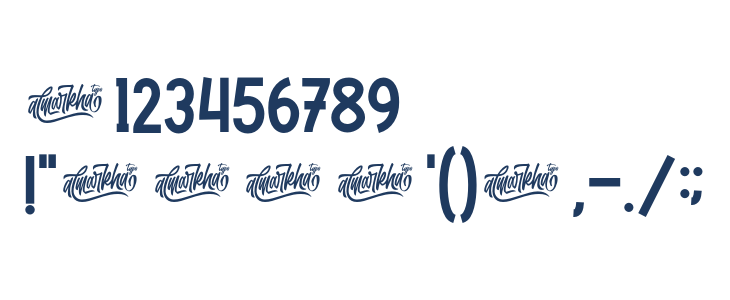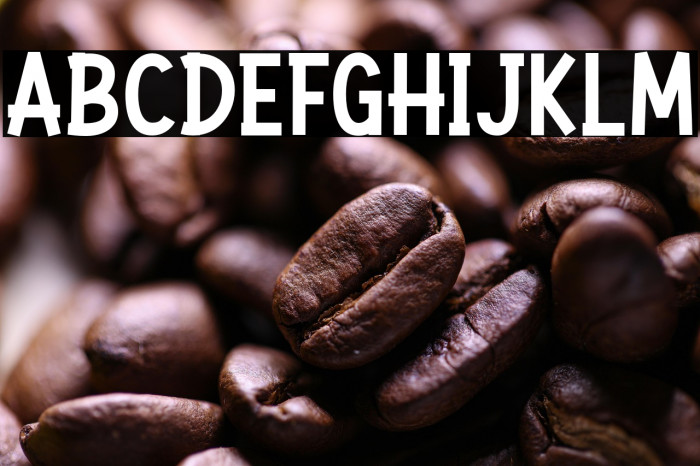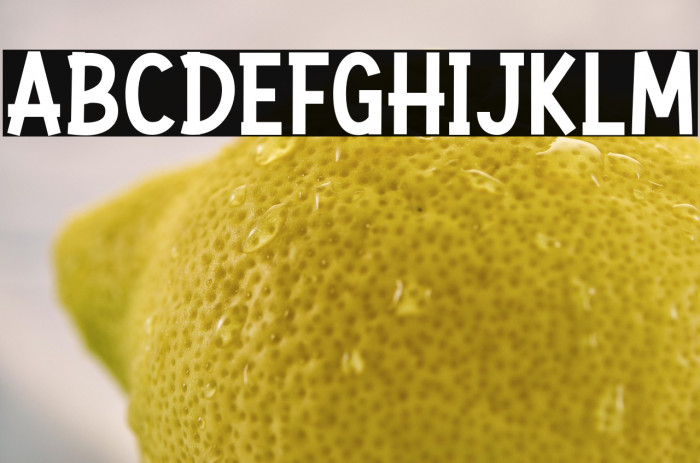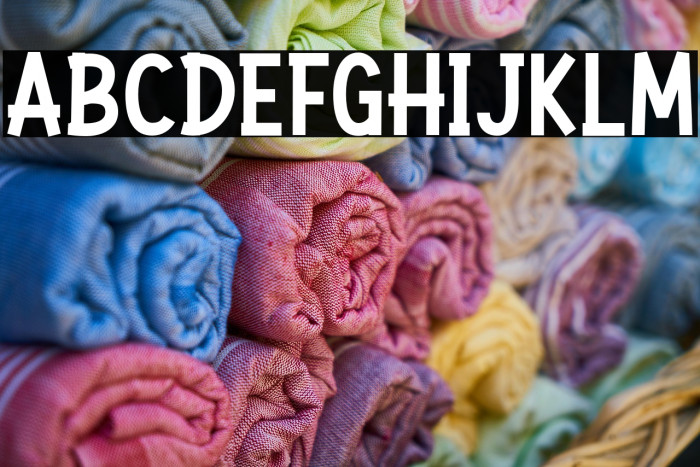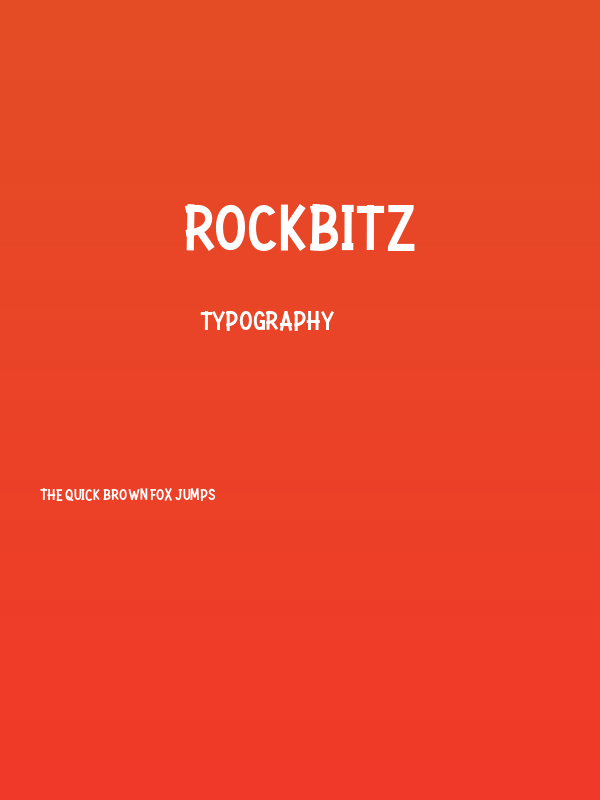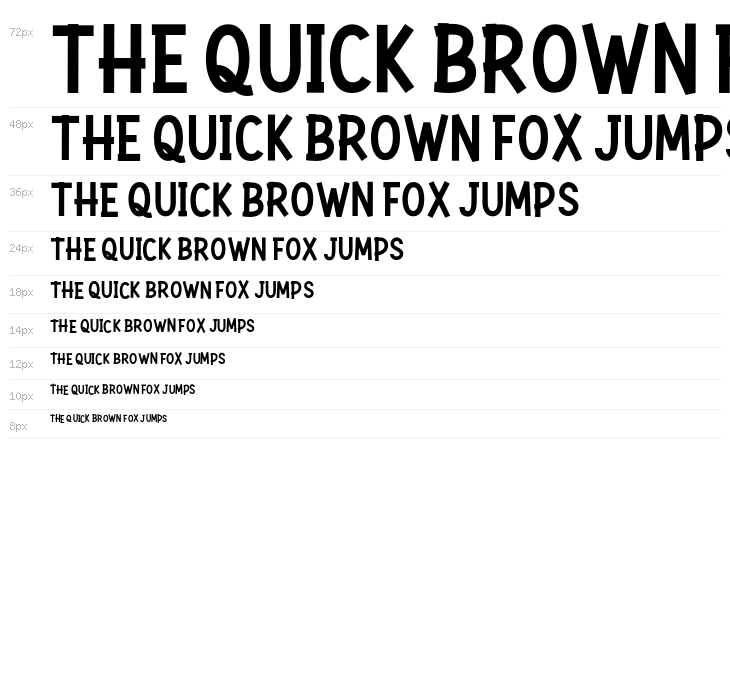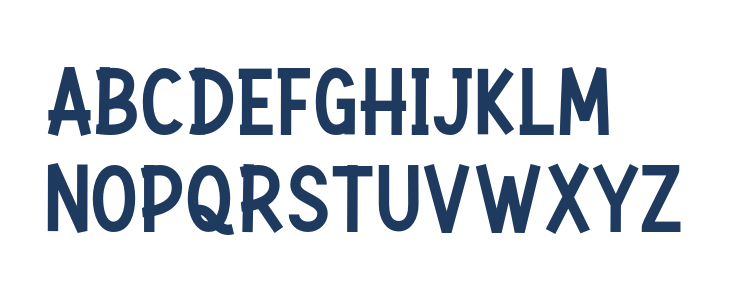
Rockbitz Font
Rockbitz Description
This font features bold, blocky characters with a strong presence, making it ideal for attention-grabbing designs. The uppercase letters are uniform in height, with a slight slant that adds a dynamic feel. The lowercase letters maintain the boldness, ensuring consistency across text. Numbers are equally robust, matching the style of the alphabet. Special characters are included, offering versatility for various design needs. The overall appearance is modern yet slightly retro, suitable for projects that require a bold statement.
| Proposed Projects | Ideal for posters, headlines, branding, and any project requiring a strong visual impact. |